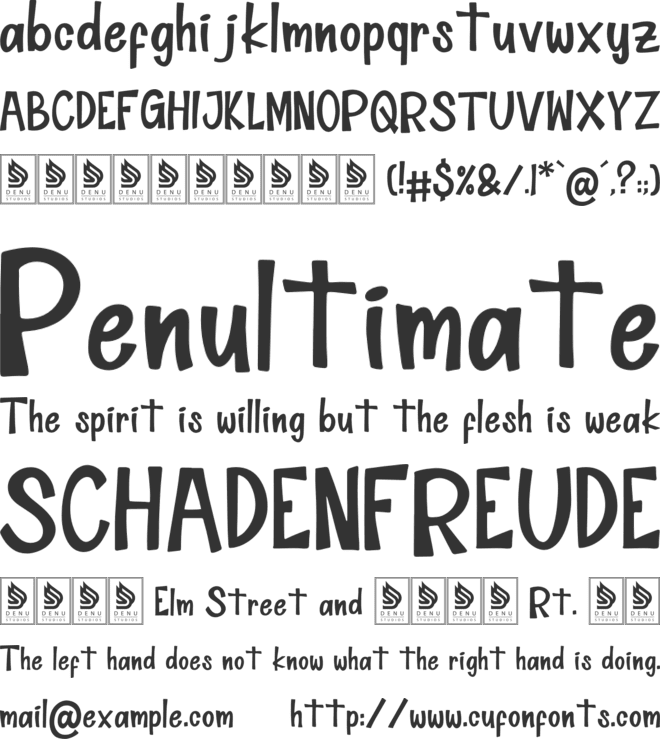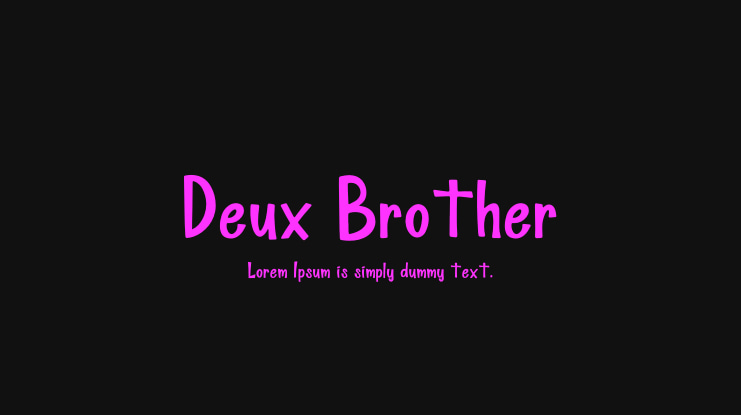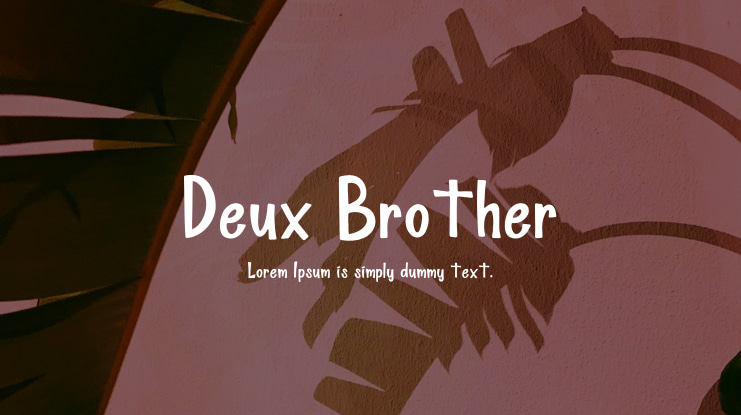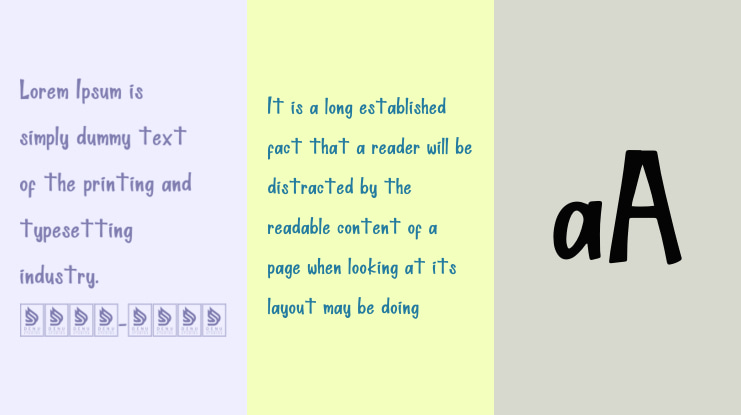
Deux Brother | Fun Display Font is perfect for a wide range of projects, including logos, branding designs, home decor, product packaging, mugs, quotes, posters, shopping bags, t-shirts, book covers, business cards, invitation cards, greeting cards, labels, photography, watermarks, special events, and any other creative endeavors that require a playful display font.